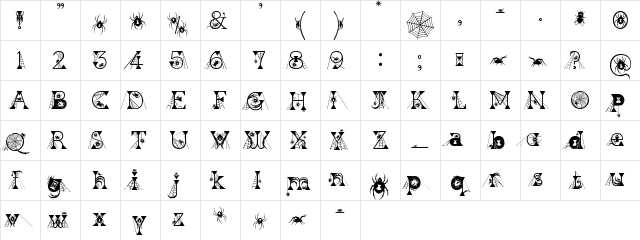
Kingthings Widow regular
| Designer | Kevin King, Exeter, England 2008 |
Kingthings Widow is a composed and adaptable typeface that performs quietly and consistently across a wide range of design contexts. The delicate stroke weight brings airiness and refinement to layouts.